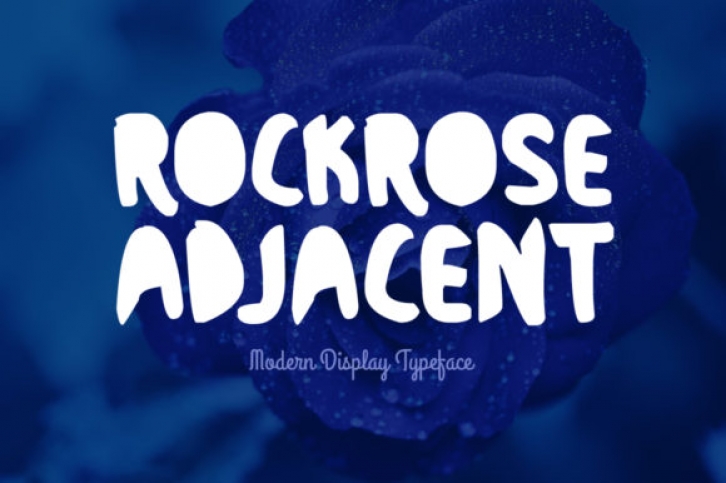
The Rockrose Adjacent is a brand new display font. It’s perfectly suited for stationery, logos, t-shirts, papers, print designs, website headers, photo frames, flyers, music covers, posters, image sliders and much more.